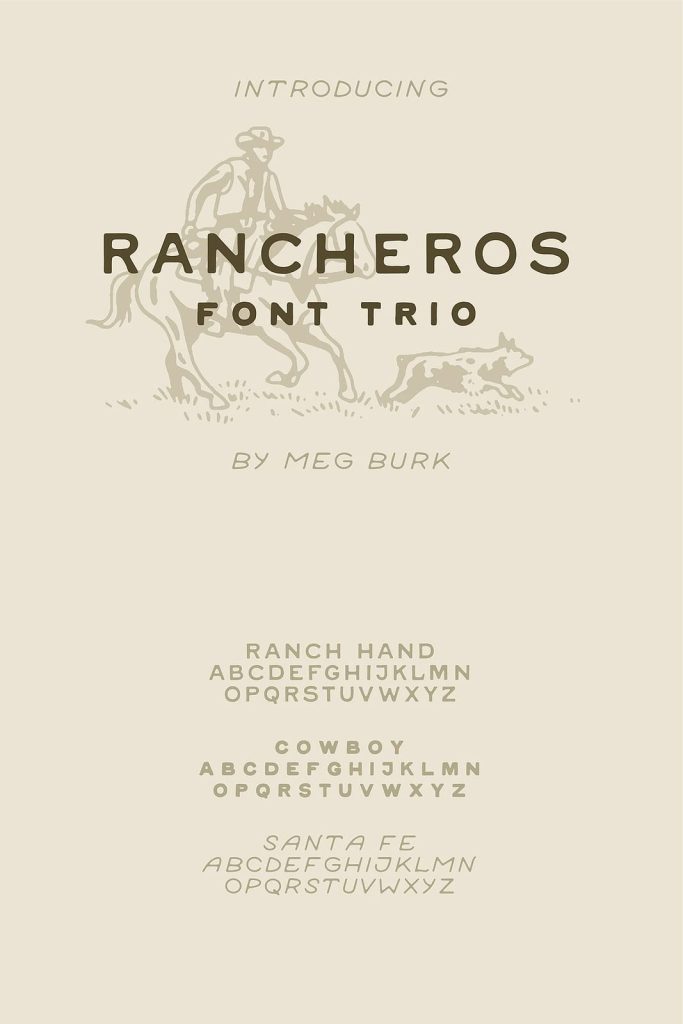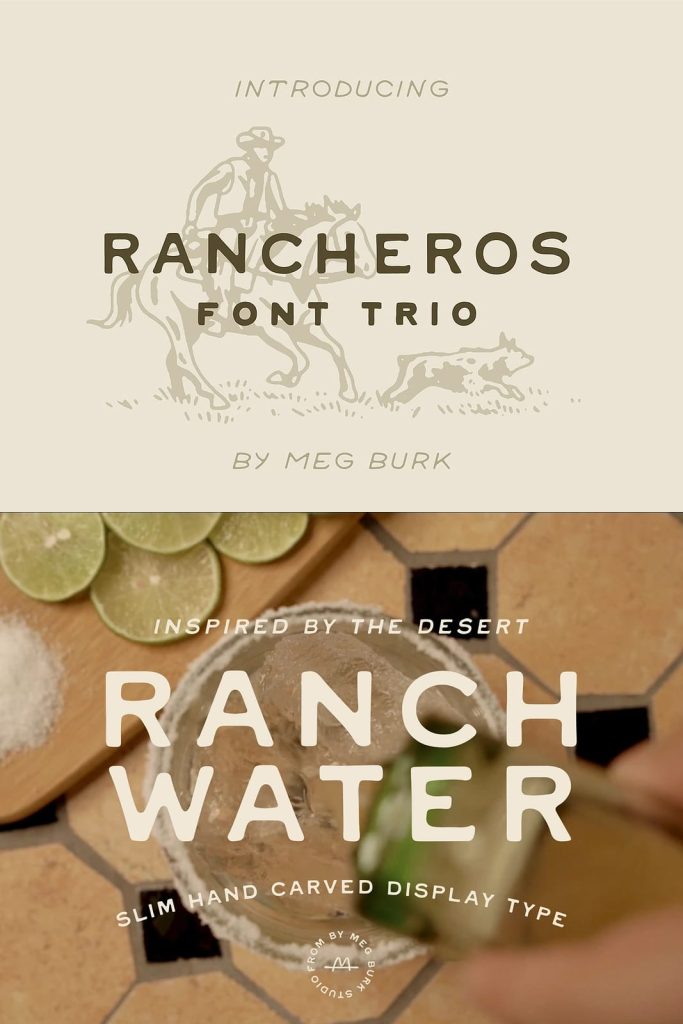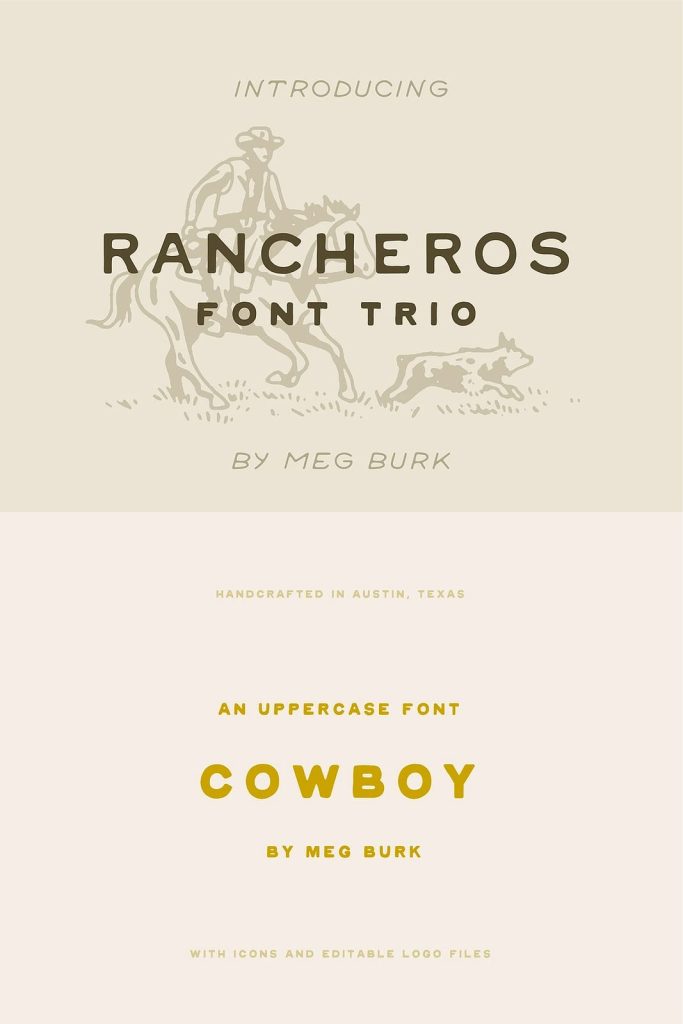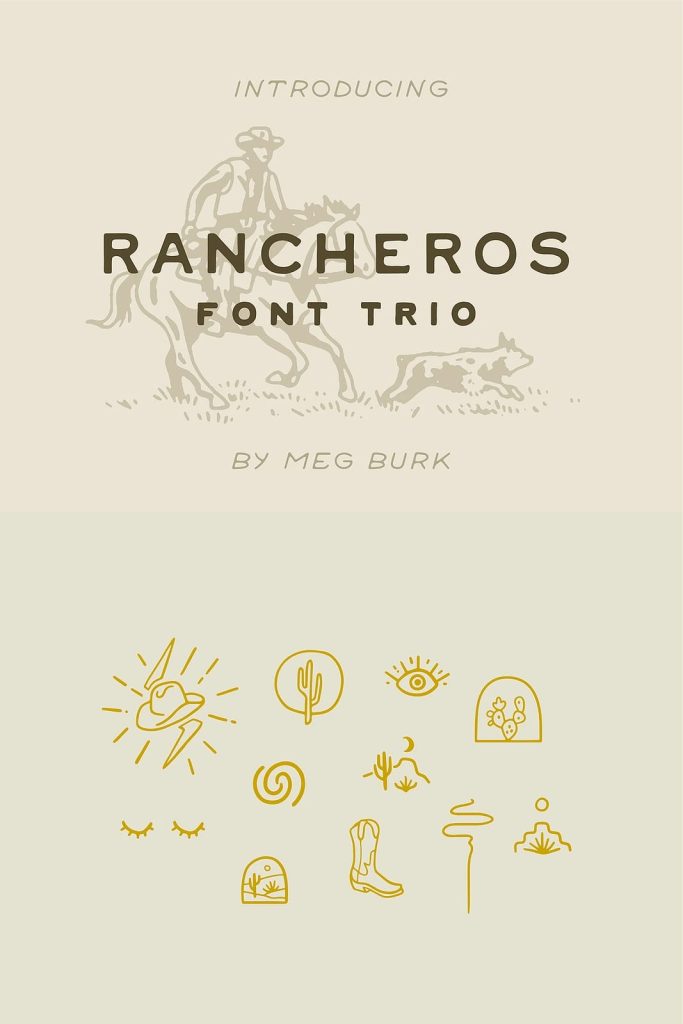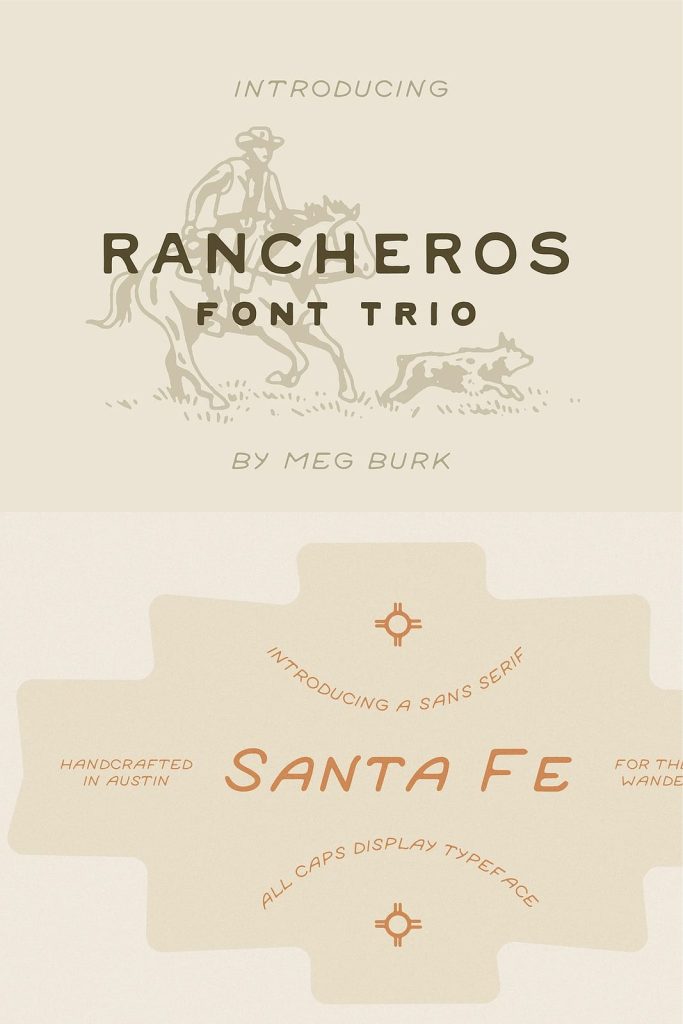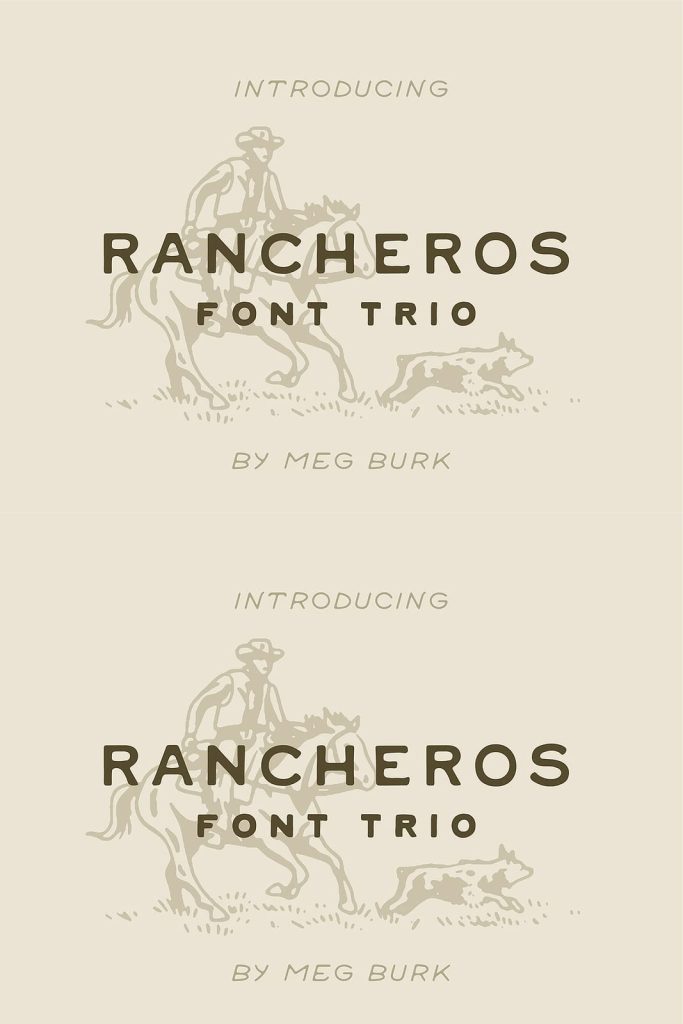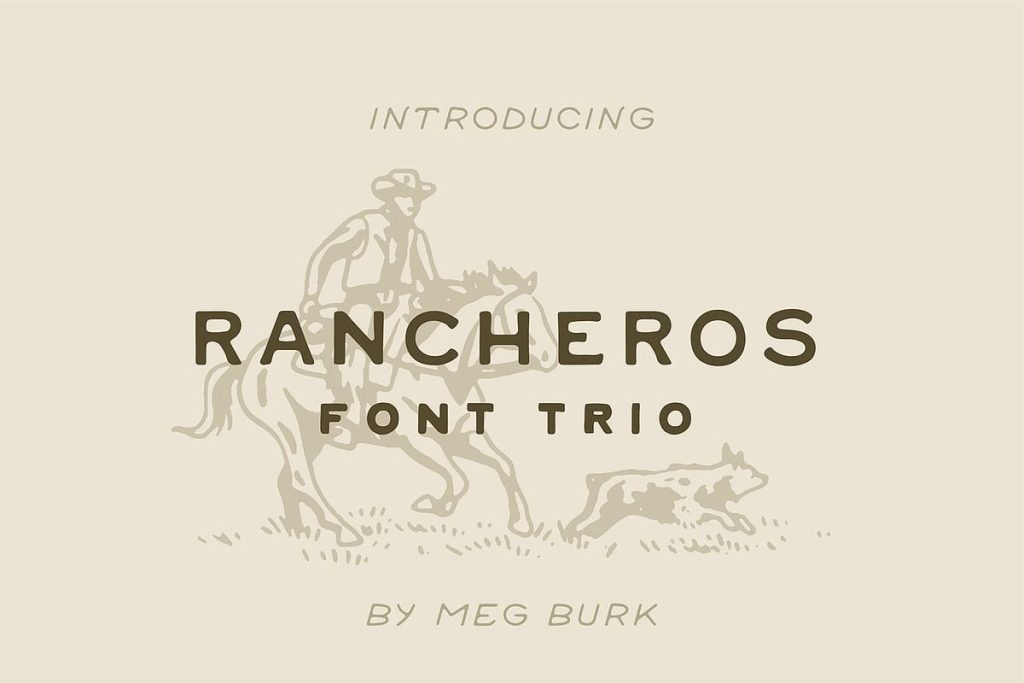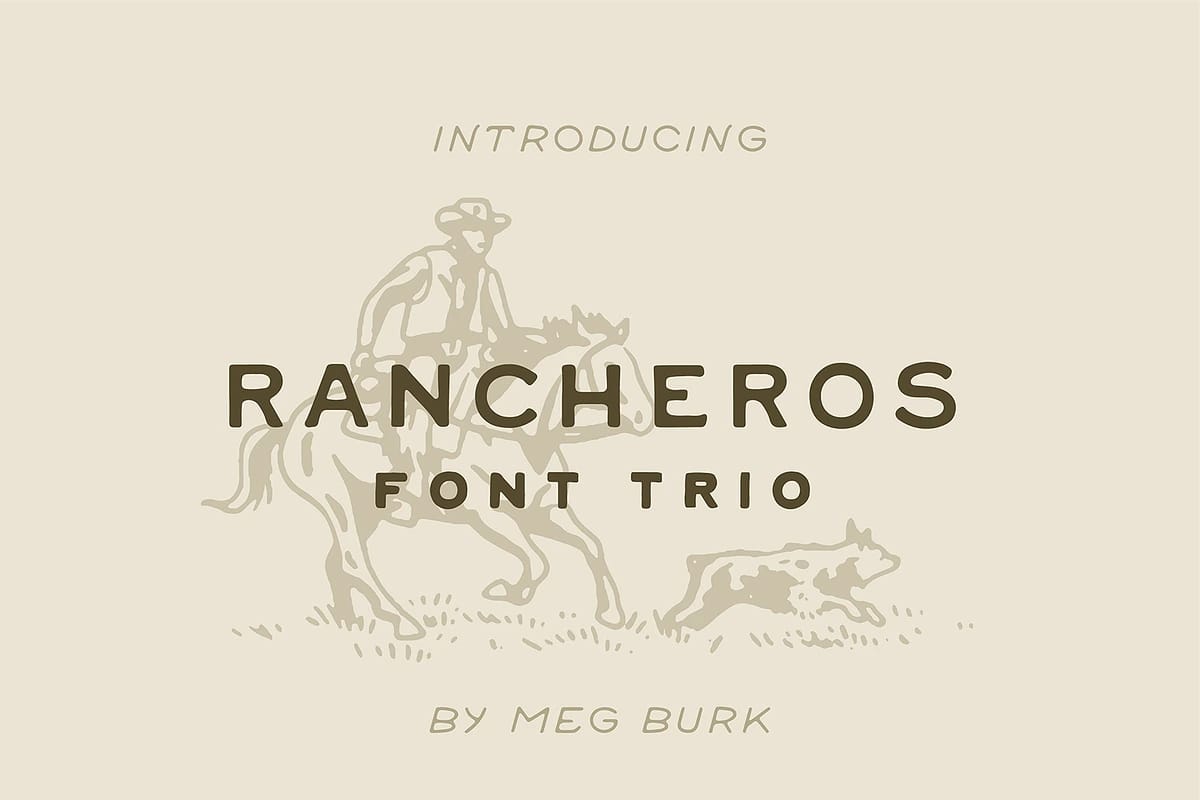
Rancheros – Western Font Trio
Round up my three most popular fonts. Just imagine, your design problems are the cattle and you, your horse, and your furry best friend are going to tackle the day.